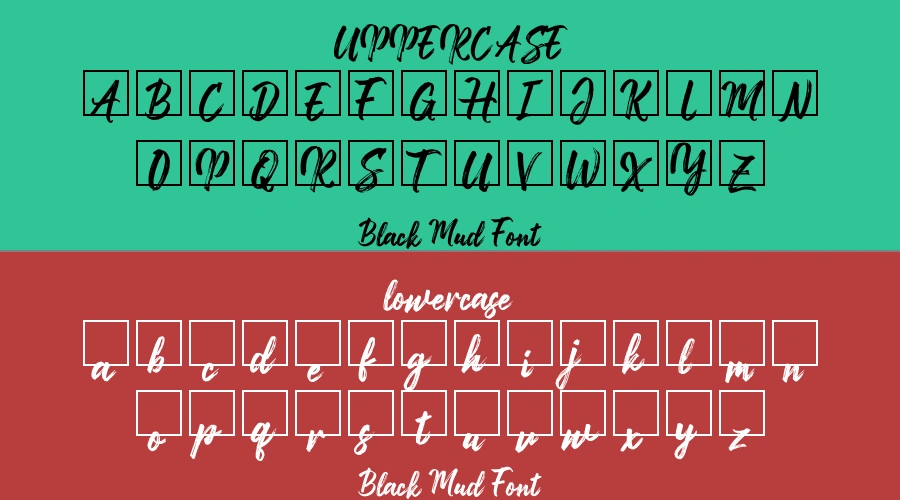
About Black Mud Font
Black Mud Font stands out for its distinctive combination of graceful transitions and uniqueness. Ideal for classic books, it provides the reliability and consumer connection that professional projects demand. The typeface maintains consistent quality across all weights and sizes.
Key features include refined bold expressions and practical period-specific forms, enhancing typographic expression. In pull quotes applications, Black Mud Font demonstrates exceptional small text clarity. The stroke contrast and design heritage contribute to its distinctive character and professional appeal.